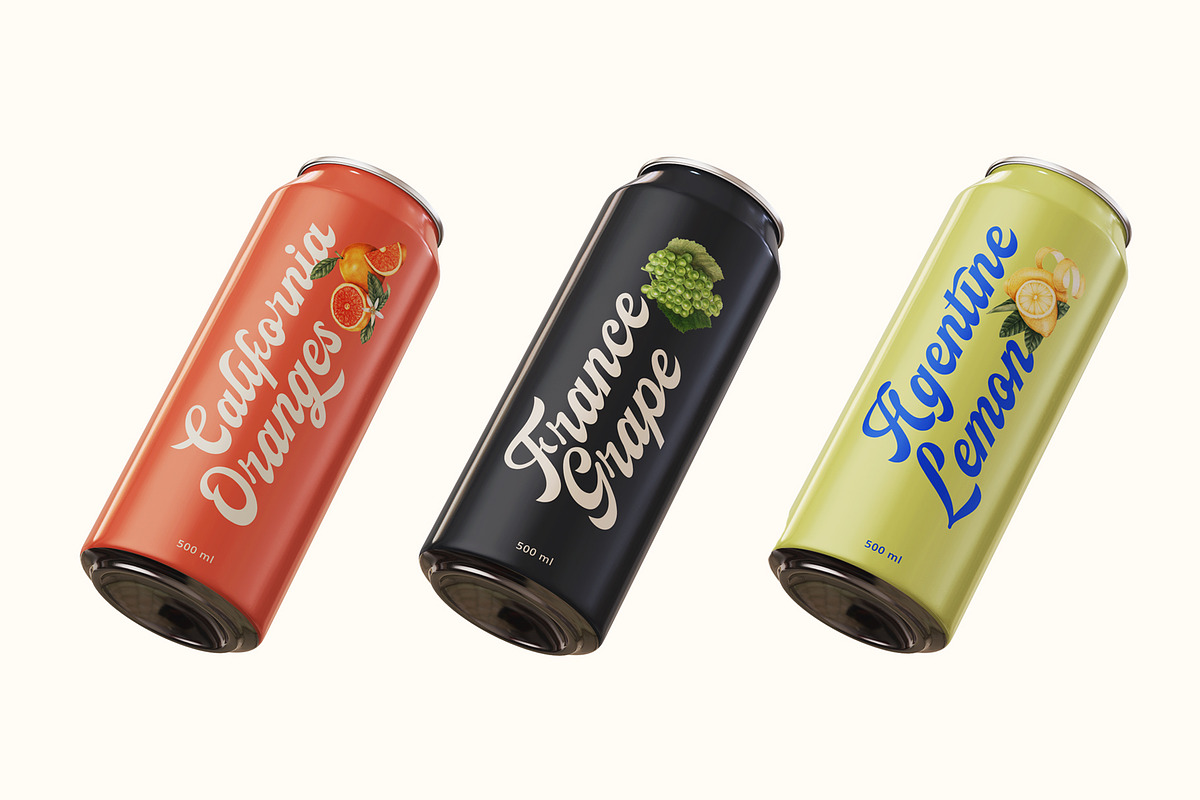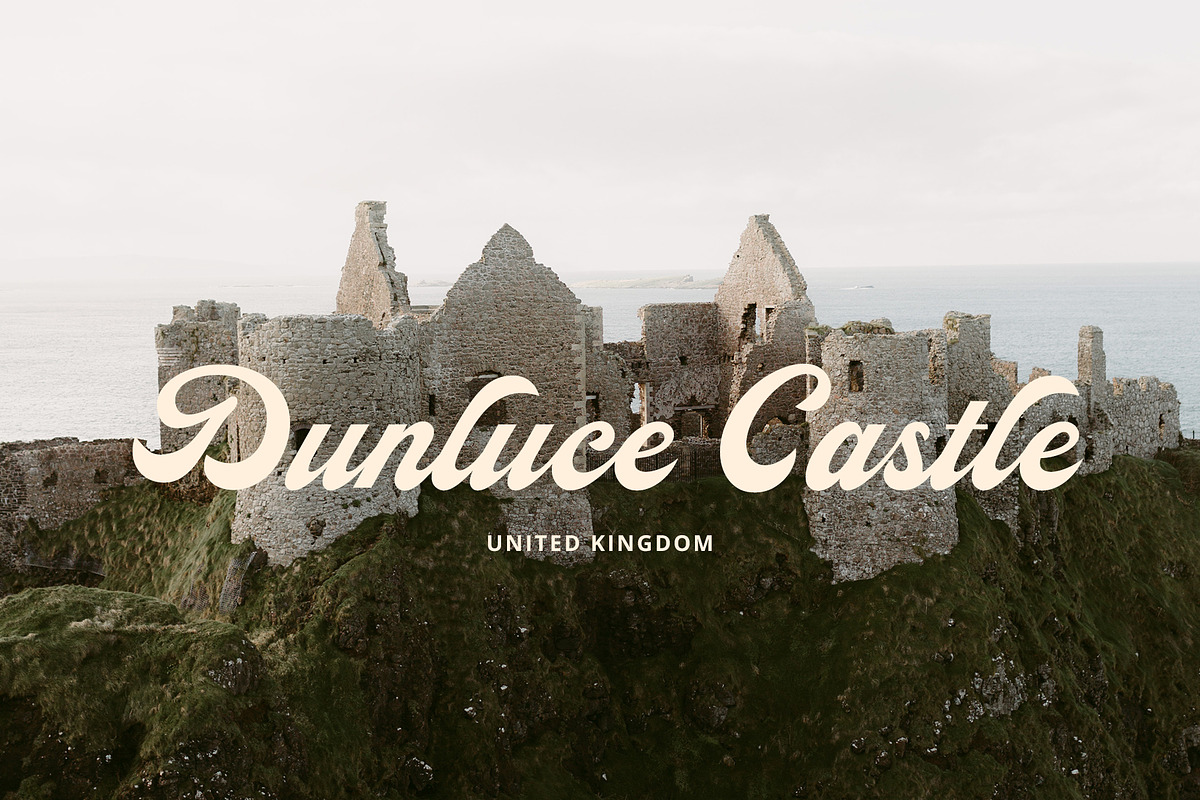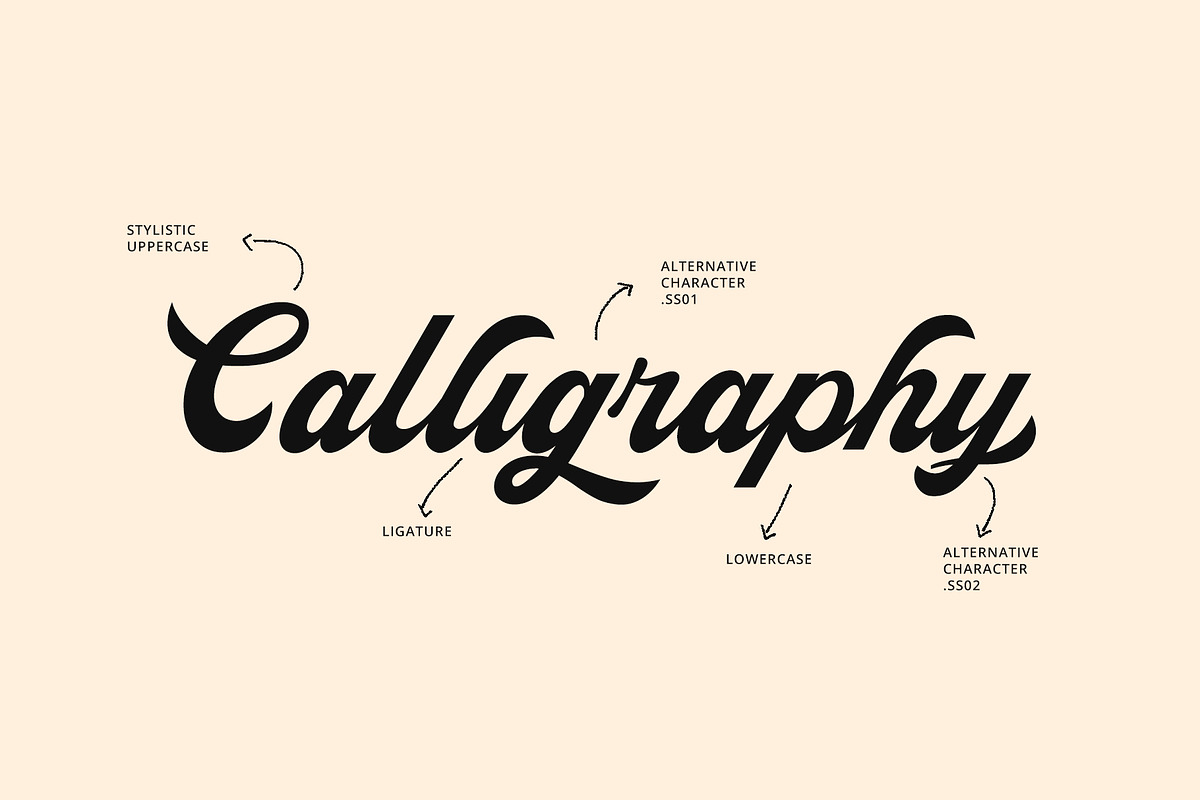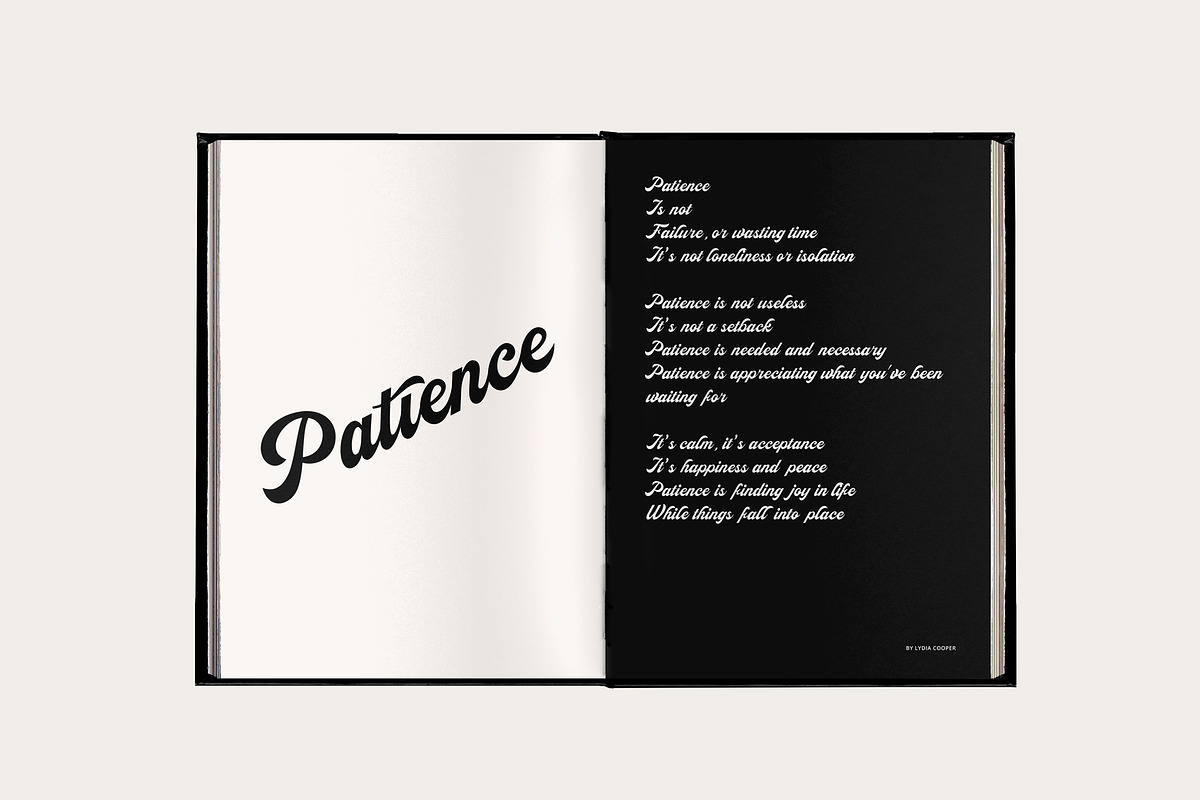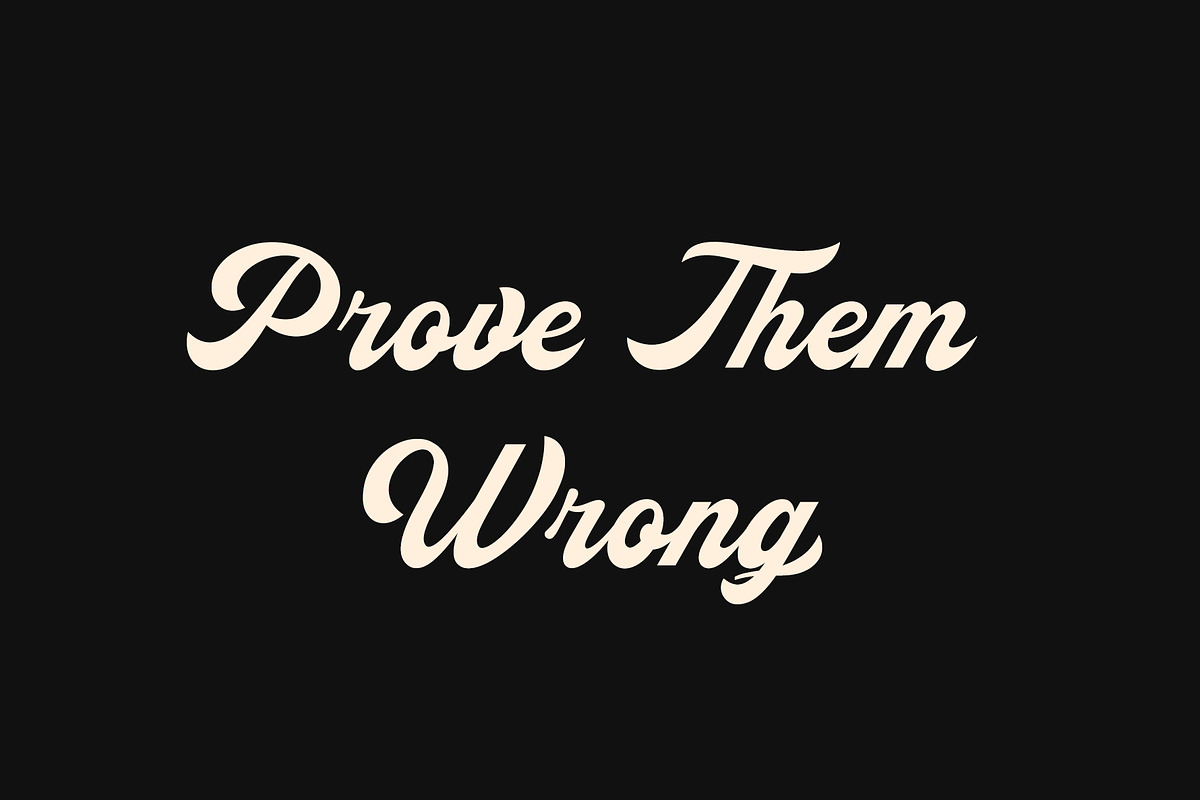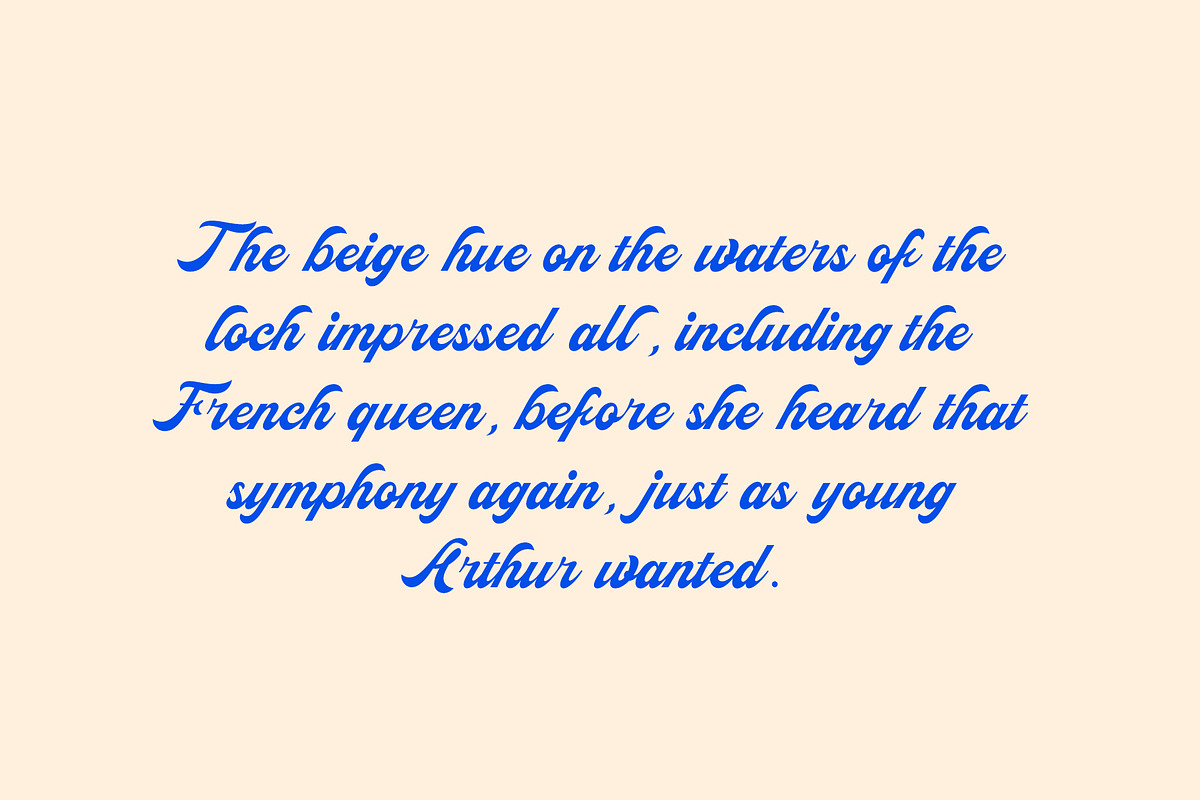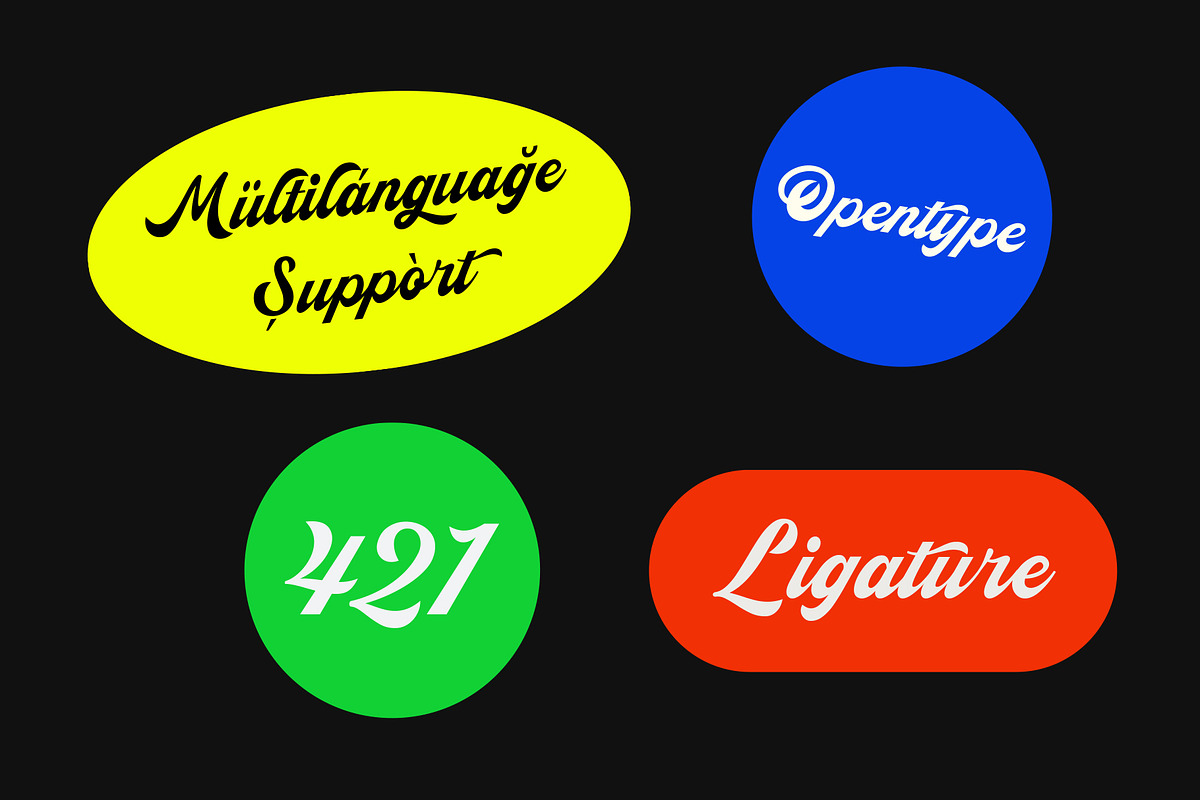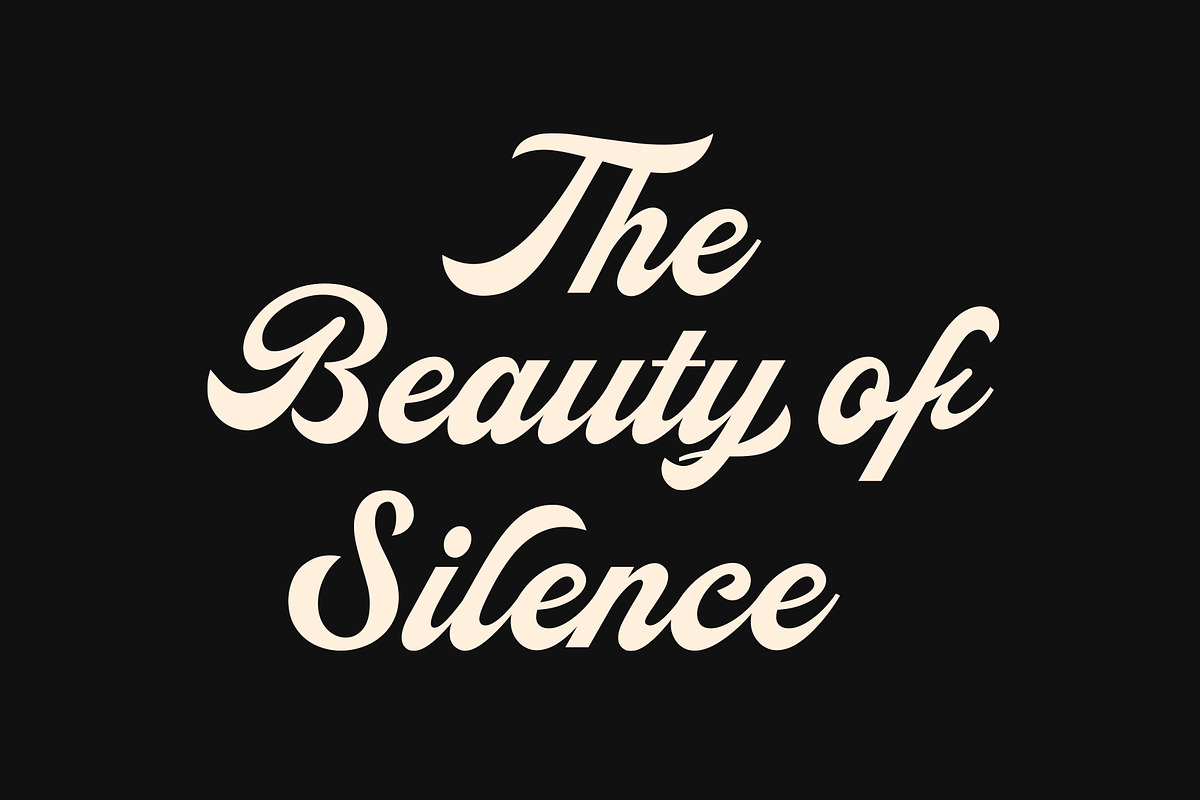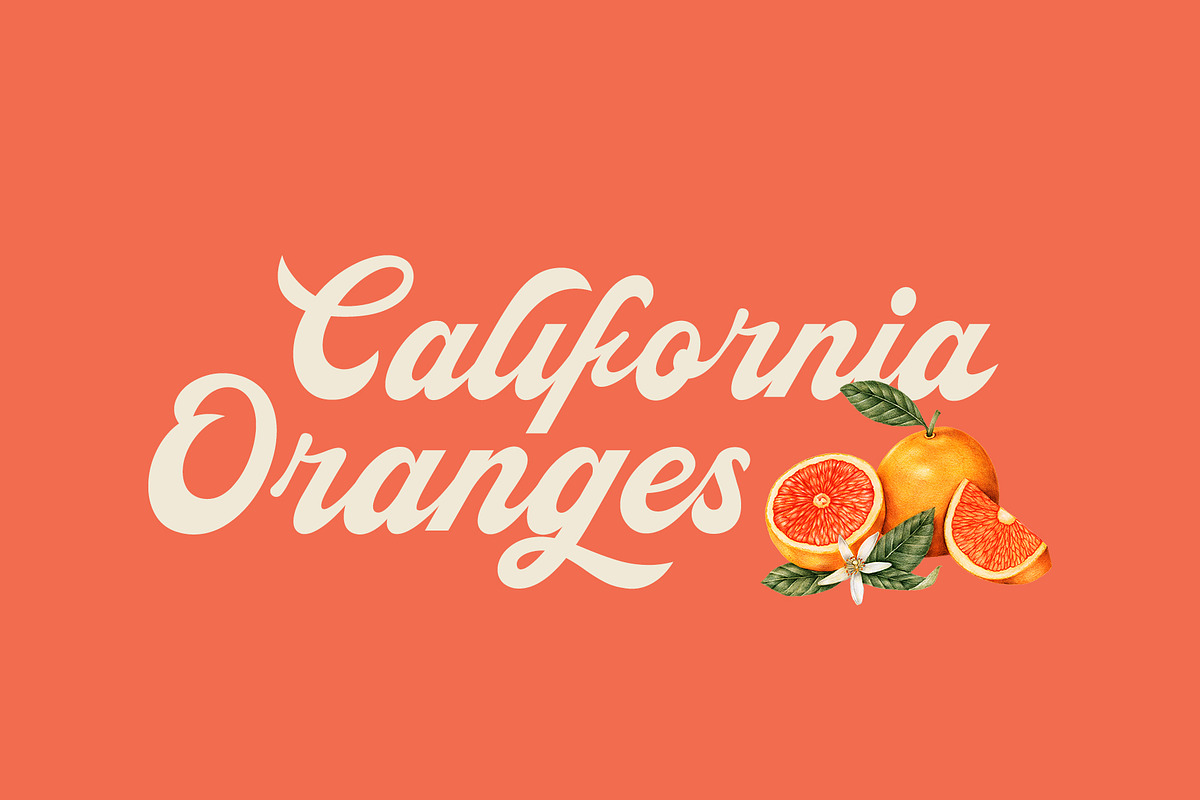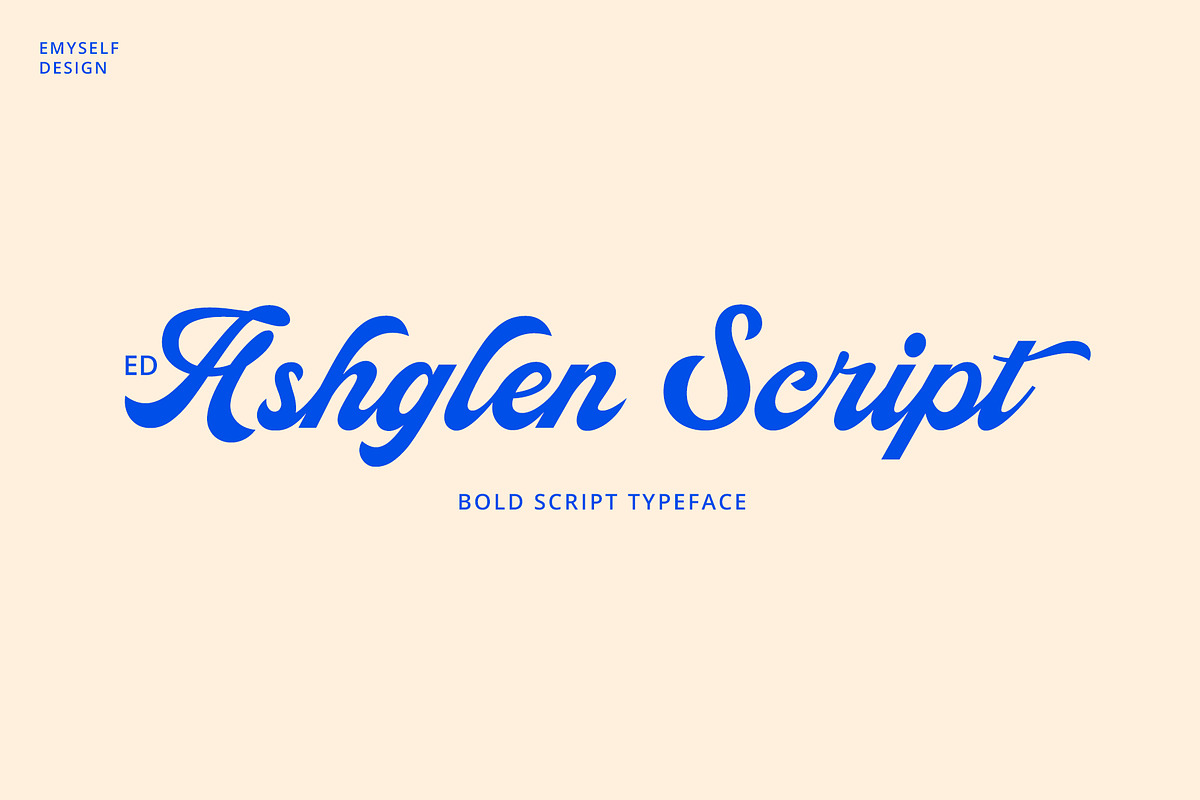
ED Ashglen Script
ED Ashglen is font script that has a thick, bold and strong style that has an elegant, classic and unique impression. ED Ashglen font is developed from several characters consisting of uppercase, lowercas, punctuation & symbols, numbers, multi-language characters, ligature, and alternative characters.
because it has the impression of an elegant and classic font that is very suitable for branding boutique logos, store logos, or you can use it for other design purposes such as posters, t shirt designs, cards, branding designs, and other design needs.